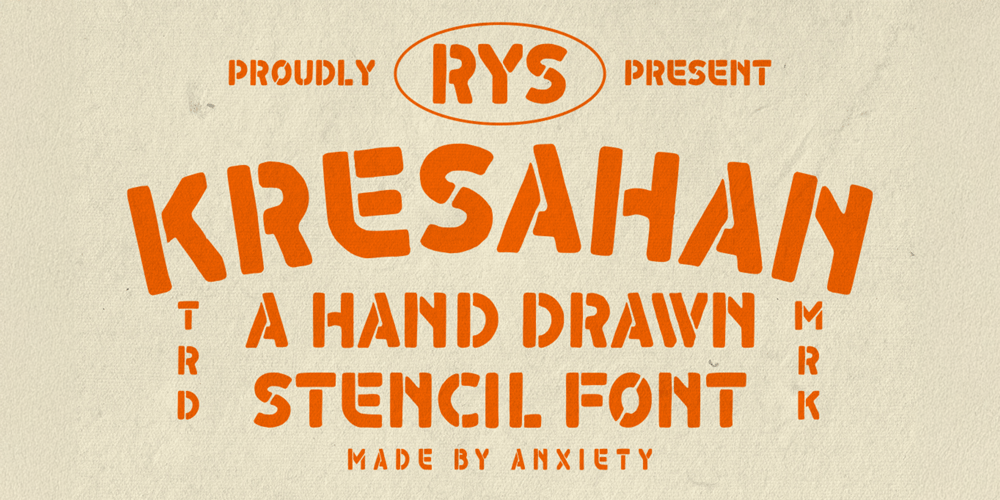
RYS Kresahan Font Family was designed by Witoko Aji Laksono and published by RYS Design Studio. RYS Kresahan contains 1 styles and family package options. Introducing RYS Kresahan A Handdrawn Stencil Font. It was inspired from vintage typography on street and military. This font is very suitable for application to displays and logos that require an authentic handmade touch, and various other formal forms such as t-shirts, posters, quotes, packaging, merchandising and other printing needs.